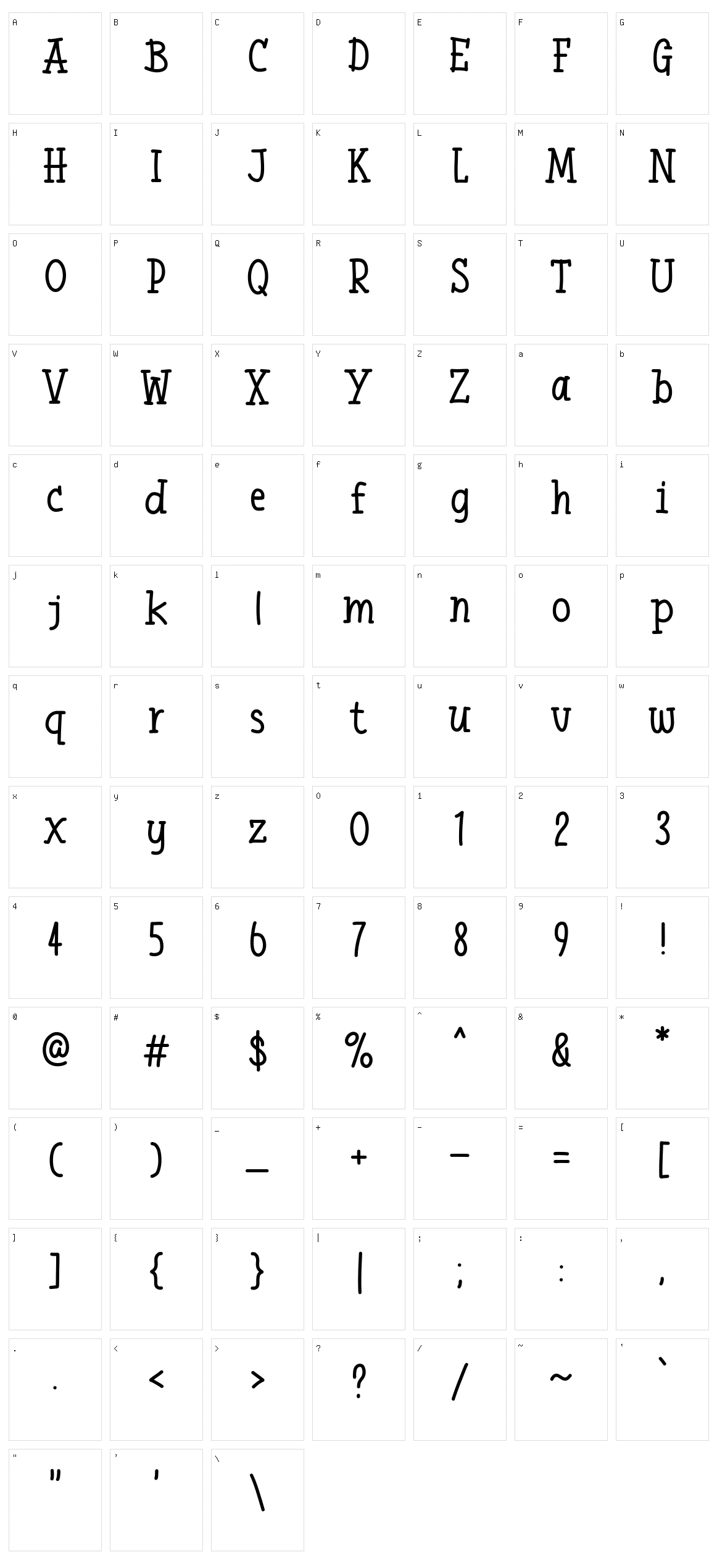
The free font Catbrother is carefully designed by Khurasan, showcasing a thoughtful balance of creativity and usability and falls under the Cartoon font style. When you download the ZIP file, it contains only 393.35 KB of font files, making it lightweight and quick to download. Please review the license details below to understand permitted usage and distribution rights. If license information is not available, we recommend using this font for personal projects only or contacting the author directly for commercial usage permissions.